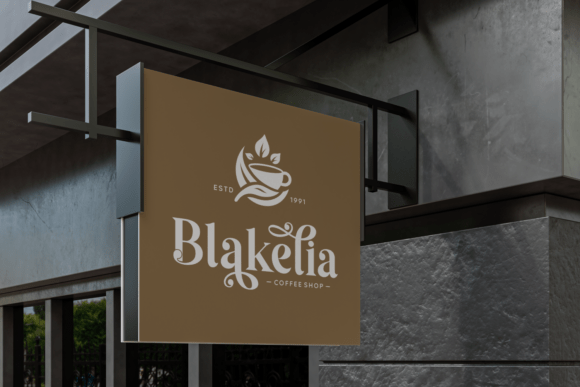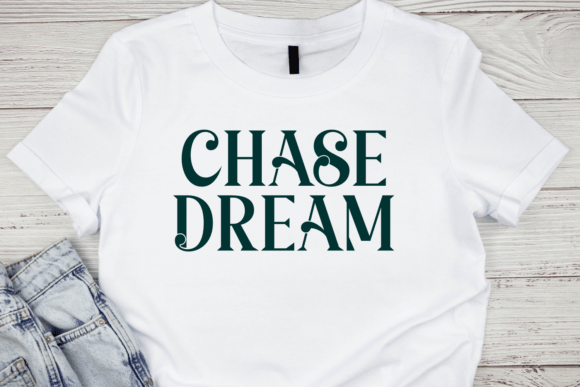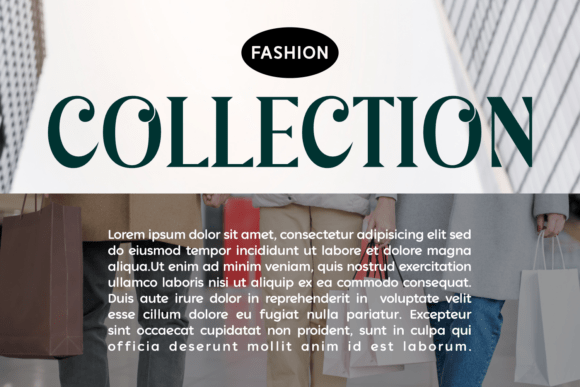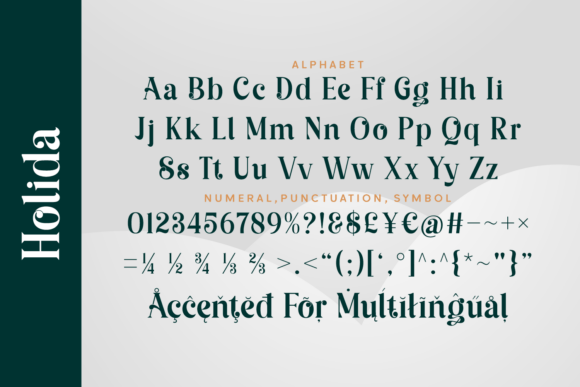
Introduction to Holida Font
Holida is a playful yet sophisticated modern serif font with gorgeous swashes and artistic flair.
It’s perfect for branding projects that need to make a statement, from boutique logos and skincare packaging to social media graphics and headers Holida’s decorative details add a whimsical charm while still feeling upscale and polished.